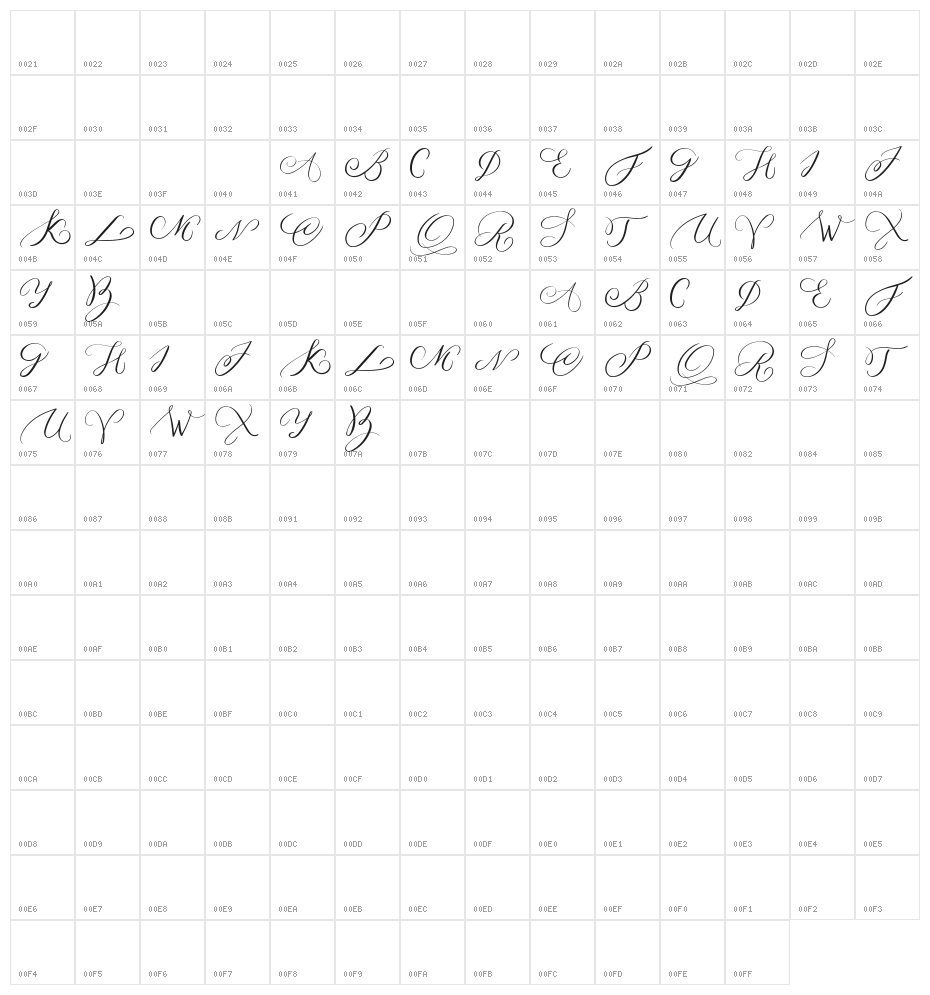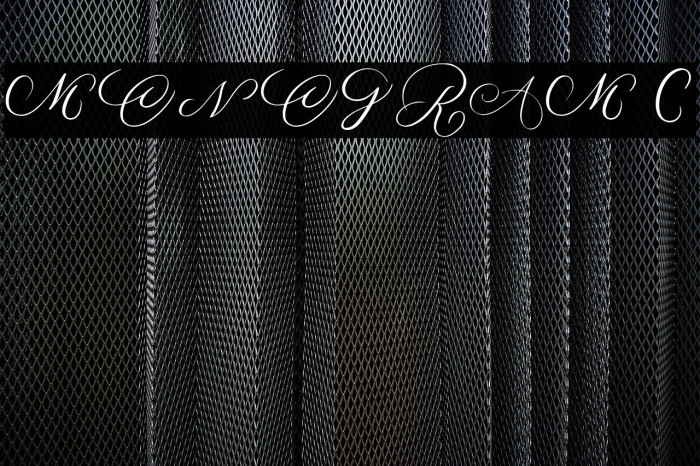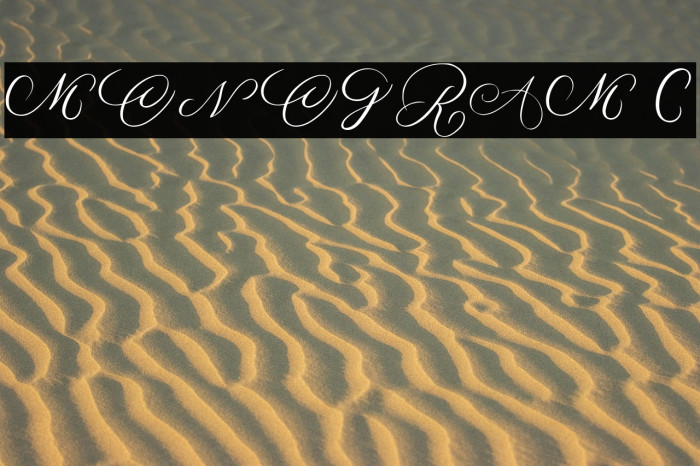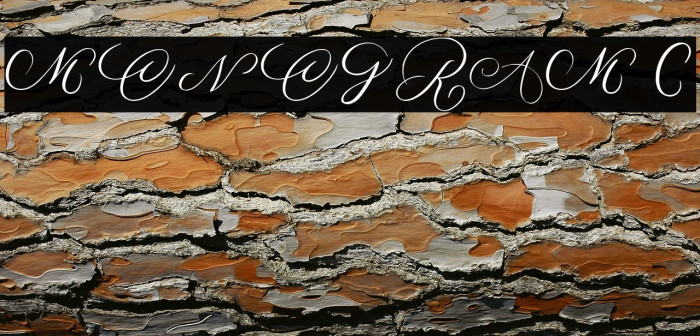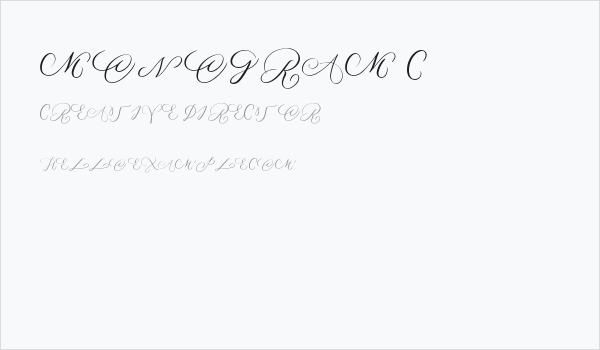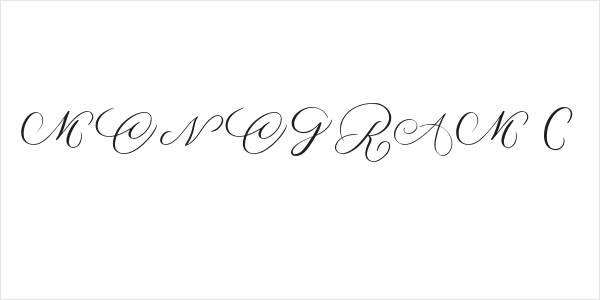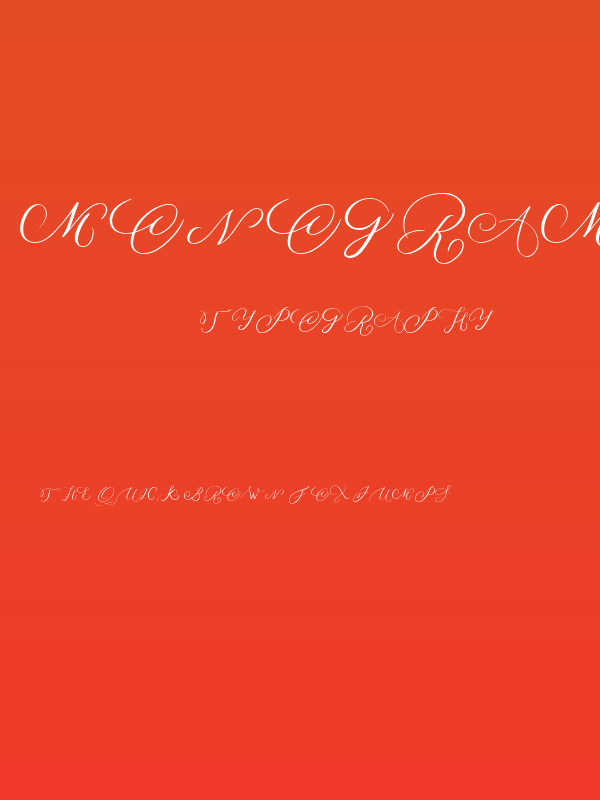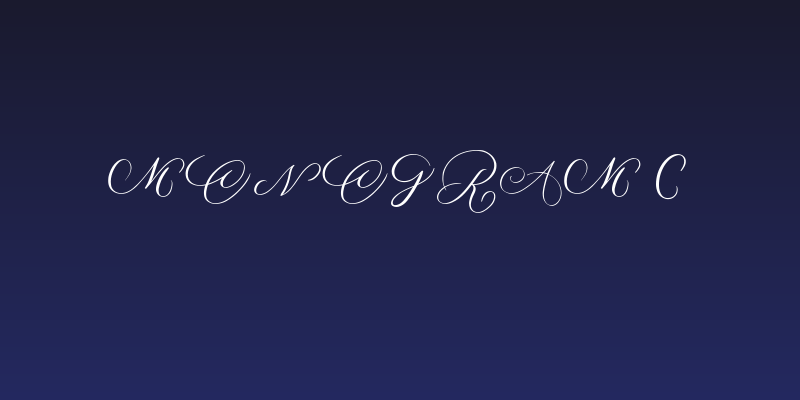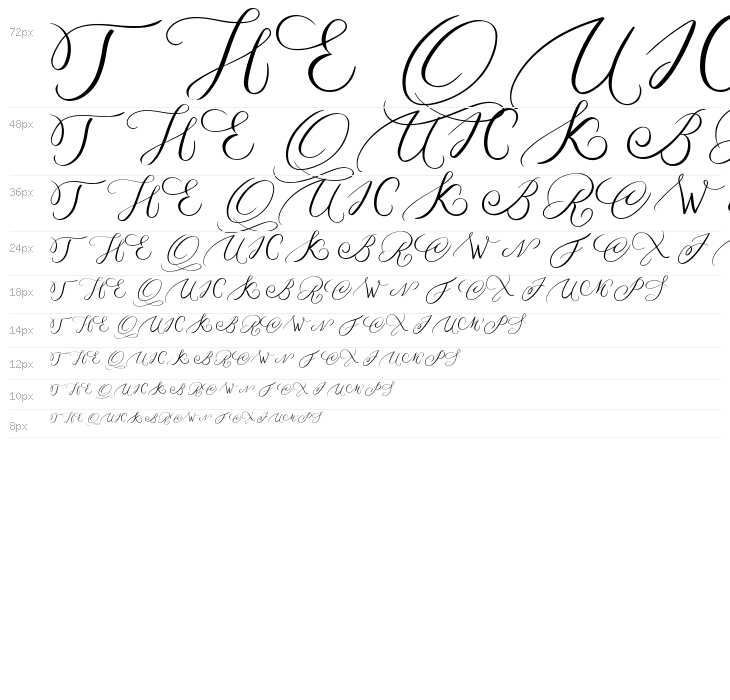
MONOGRAM C Font
MONOGRAM C Description
This elegant script font features intricate, flowing letterforms with elaborate swashes and flourishes. Each character is designed with a high level of detail, making it ideal for decorative purposes. The uppercase letters are particularly ornate, with extended loops and curves that give the font a luxurious and sophisticated appearance. The lowercase letters maintain the same level of elegance, with a consistent stroke width that enhances readability while preserving the font's decorative nature. This font is perfect for creating monograms, wedding invitations, or any project that requires a touch of elegance and refinement.
| Use Case | Logos, Invitations, Decorative text |
| Proposed Projects | Ideal for wedding invitations, monograms, luxury branding, and decorative headings. |